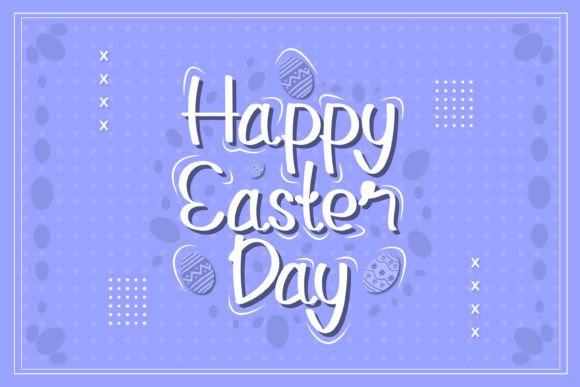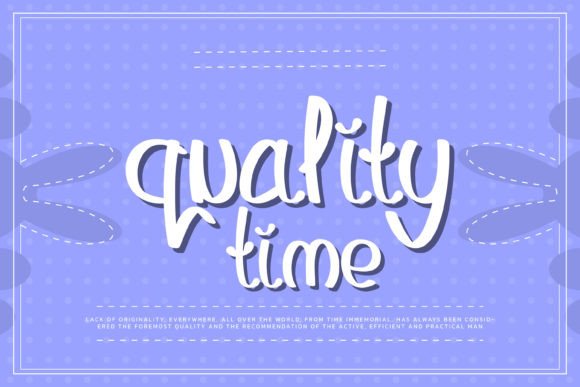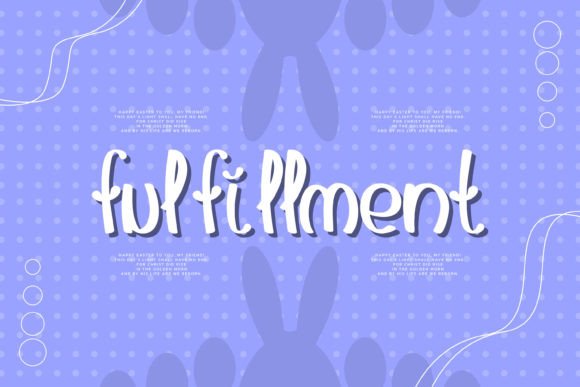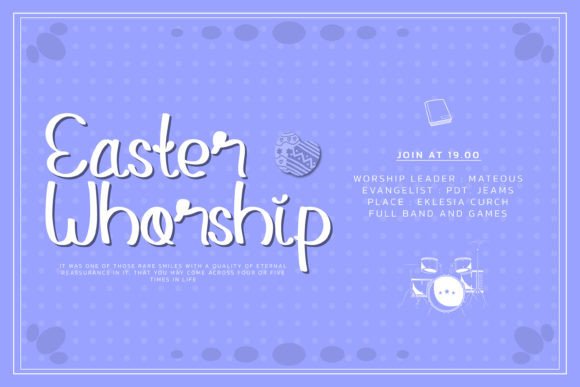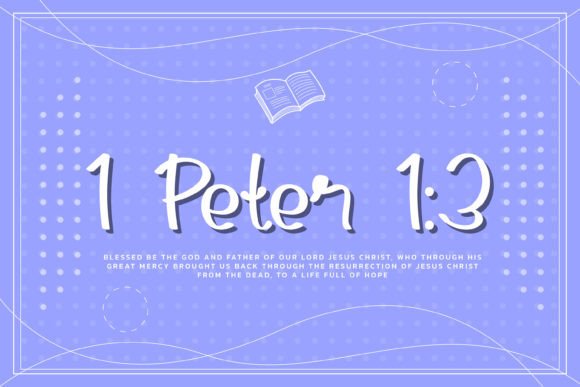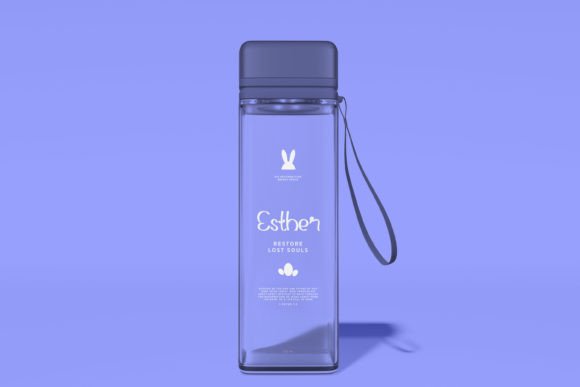
The Esther Font: A Cute and Friendly Companion for Kid-Friendly Designs
An Honest Review of Esther Font
The Esther font has quickly become a favorite in my design toolkit, and for good reason. Here are some things I love about it:
- ✨ Cute and Friendly: Esther has a playful, approachable vibe that’s perfect for designs aimed at kids or with a youthful theme.
- ✅ Highly Versatile: Whether you’re working on t-shirt designs, baby onesies, nursery decorations, or digital designs, Esther fits right in.
- 💡 Easy to Read: Despite its playful nature, Esther remains clear and easy to read, even at smaller sizes.
Of course, no font is perfect, and there are a few quirks to be aware of:
- 🤔 Limited Serif Options: Esther is primarily a sans-serif font, which might limit its use in projects requiring a more traditional look.
- ⚠️ Not Ideal for Body Text: While readable, Esther’s playful nature makes it better suited for headings and titles rather than long blocks of text.
The Story Behind Esther Font
Esther was designed with the intention of creating a font that embodies warmth and playfulness. Inspired by childhood memories and the joy of simple pleasures, the designer aimed to craft a typeface that would feel both approachable and delightful. The result is a font that instantly connects with audiences, especially in kid-friendly contexts.
| What type of projects is Esther best suited for? | Esther is ideal for kid-friendly designs, including t-shirt designs, baby onesies, nursery decorations, digital designs, and more. |
| Does Esther support OpenType features? | Yes, Esther supports OpenType features, allowing for a range of stylistic variations and glyphs to enhance your designs. |
With its friendly appearance and versatile nature, the Esther font is sure to become a staple in your design toolkit. Whether you’re a seasoned designer or a creative hobbyist, Esther can help you create engaging, kid-friendly designs that capture hearts.